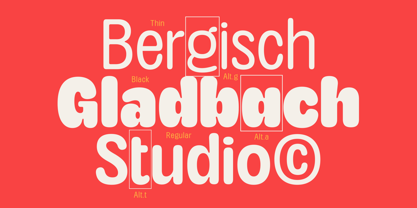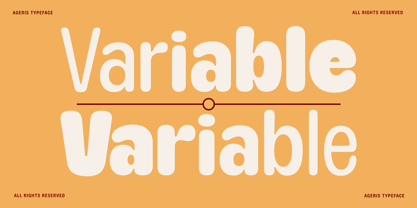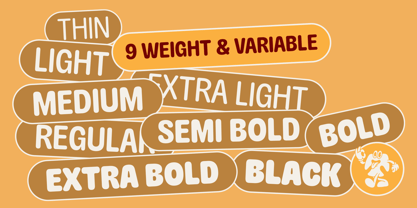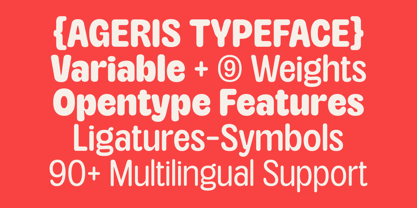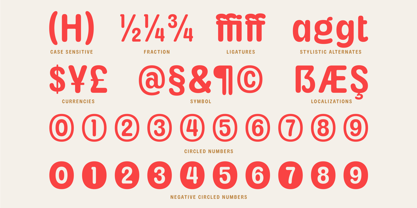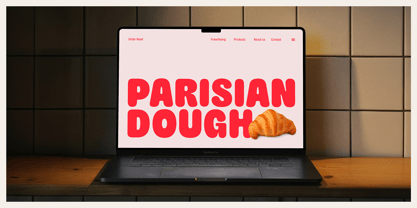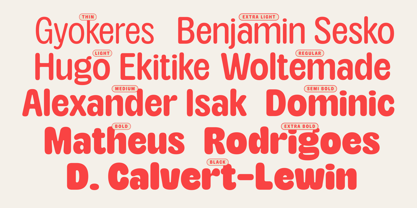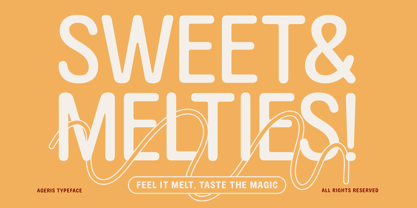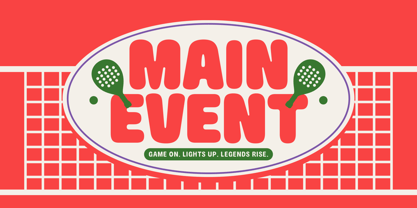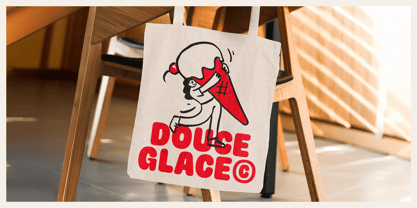
The Ageris Font Family was designed by Bagas Ferdiansah, Septianto Nugroho and published by The Native Saint Club. Ageris contains 9 styles and family package options.
TNSC Ageris is a rounded sans serif typeface designed to bring joy, energy, and warmth to your visual projects. This family comes with 9 weights from Thin to Black plus a Variable Font, giving you full control over contrast, weight, and expression. Perfect for headlines, packaging, posters, logotypes, playful branding, and friendly modern identities.
Ageris